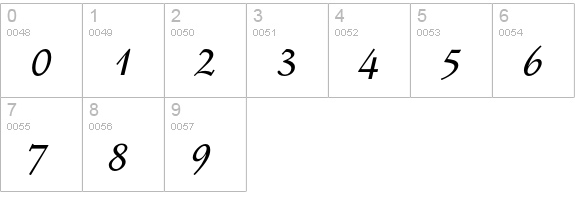
Stempel Schneidler Std Medium Italic is a balanced, medium-weight, italic variant in the Stempel typeface family \xE2\x80\x94 well suited to sub-headlines, navigation, and balanced editorial work.
Stempel Schneidler Std Medium Italic font is a beautiful and elegant typeface that combines classic sophistication with a modern twist. Its slanted design adds a touch of dynamism and flair to any text, making it perfect for a wide range of applications, from branding and advertising to editorial design and more. This font features graceful, flowing curves and distinctive letterforms that exude a sense of refinement and style. The medium weight strikes the perfect balance between readability and impact, making it versatile for both headlines and body text. Best of all, Stempel Schneidler Std Medium Italic font is available for free download at FontsMarket.com. This means you can easily access and use this high-quality typeface in your projects without any cost. Don't miss out on the opportunity to elevate your designs with this timeless and sophisticated font. Download it today and start creating stunning typography that captures attention and leaves a lasting impression.